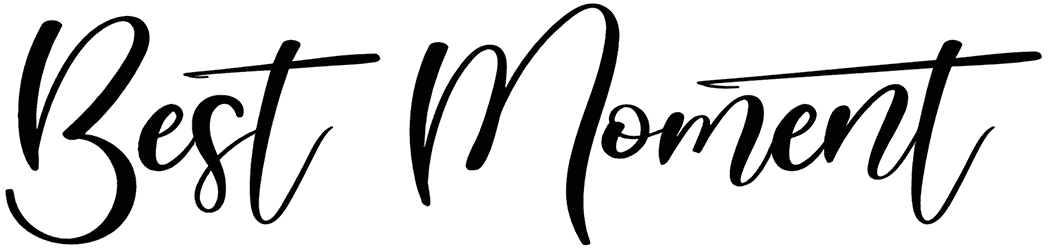
Best Moment Font
Best Moment is an excellent option if you are a social media marketer or a hobbyist looking for a romantic font for your wedding posters and cards. This calligraphy font deserves to be in your font collection.
Because it has authenticity and credibility with it, and you can trust any brand. Therefore, without any introduction or further reviews, kickstart your next project with this script font to see the growth and progress of your designs.
Best Moment is a stylish and incredibly elegant script font. It looks stunning on wedding invitations, thank you cards, quotes, greeting cards, logos, business cards and every other design which needs a handwritten touch.